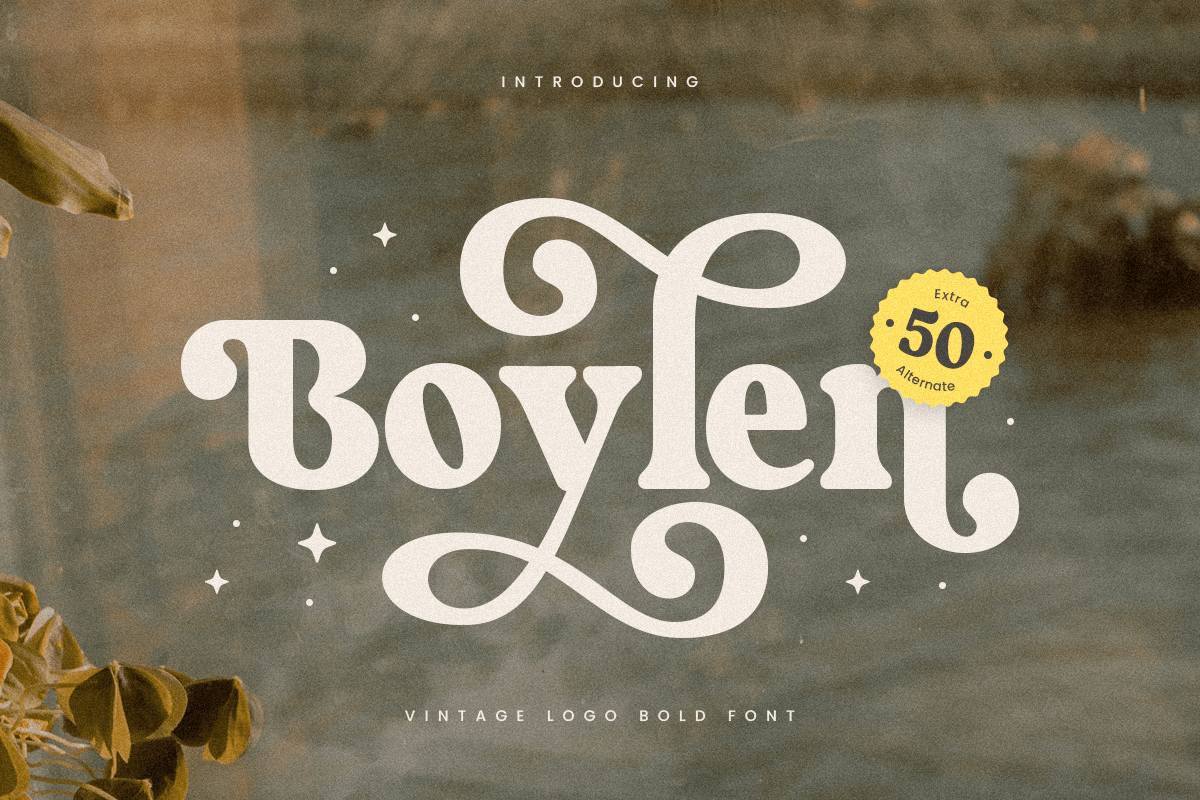
Boylen
-Vintage Logo Bold Font
Boylen
Boylen is a Vintage Logo Bold Font A New Vintage font that we created special for Unique branding needs, with extra ligature in unique style that ready to add value of your brand. It’s so nice to leverage designer or product owner that need solutions to make their design look more unique and vintage.